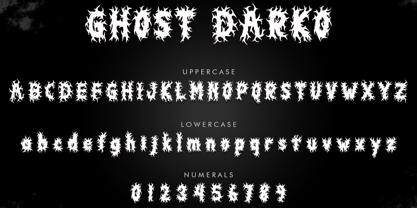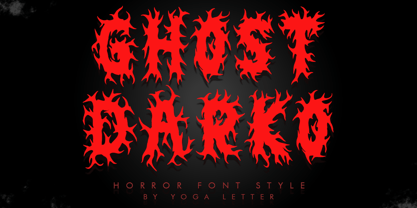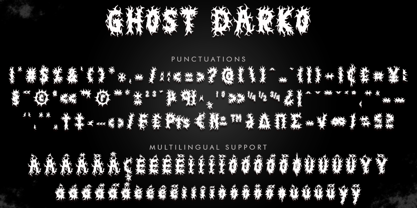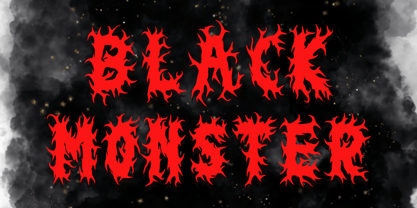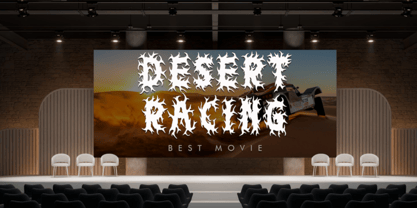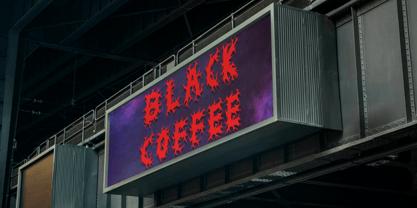
Ghost Darko
by Yoga Letter
The Ghost Darko Font Family was designed by Isroni Yoga Prasetya and published by Yoga Letter. Ghost Darko contains 1 styles.
"Ghost Darko" is a unique and spooky display font. It features uppercase and lowercase letters, numbers, punctuation, and multilingual support. It's perfect for Halloween, Christmas, book titles, horror movie titles, action movie titles, comics, t-shirts, sublimation, Procreate, banners, posters, prints, branding, stickers, laser engraving, logos, and more.